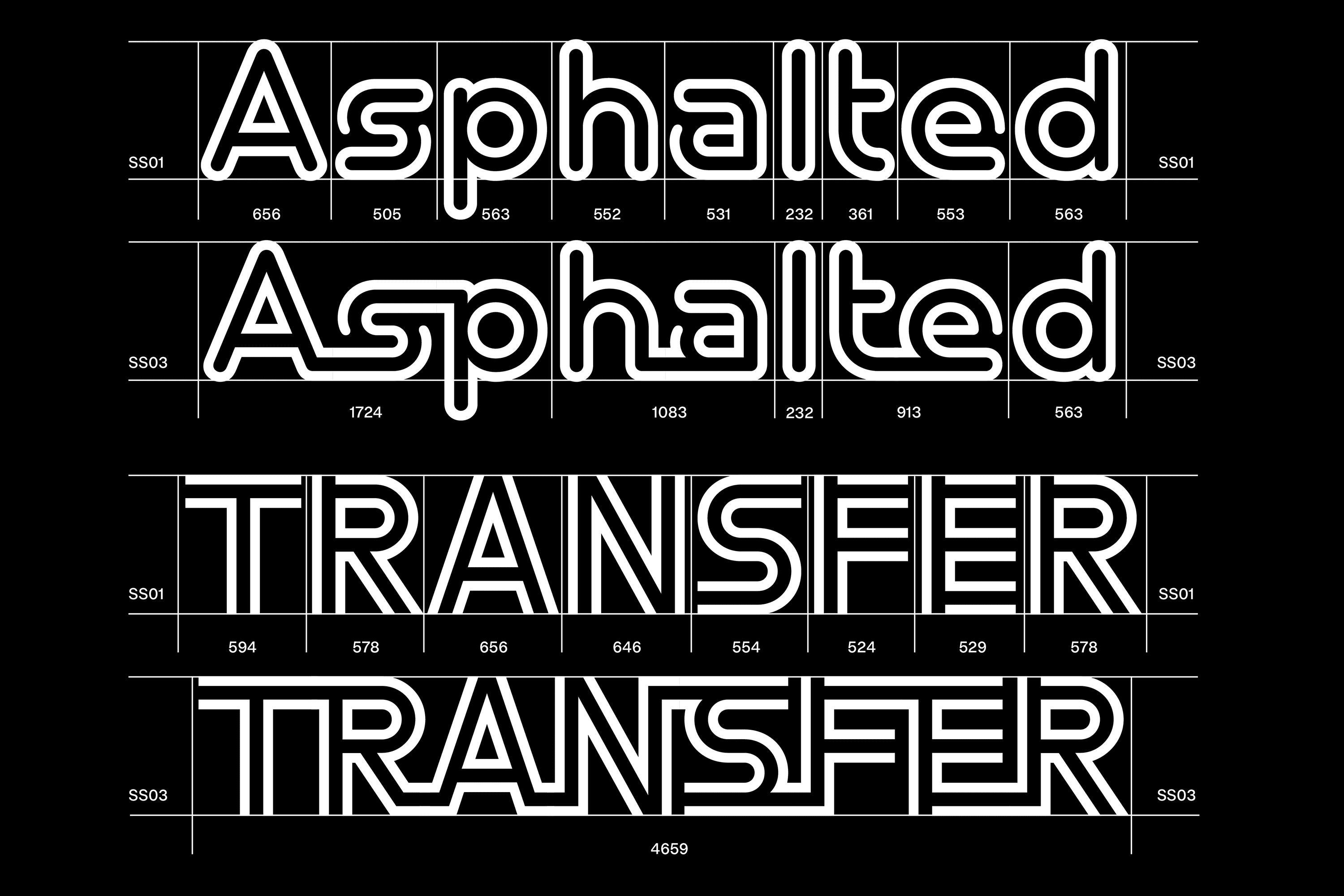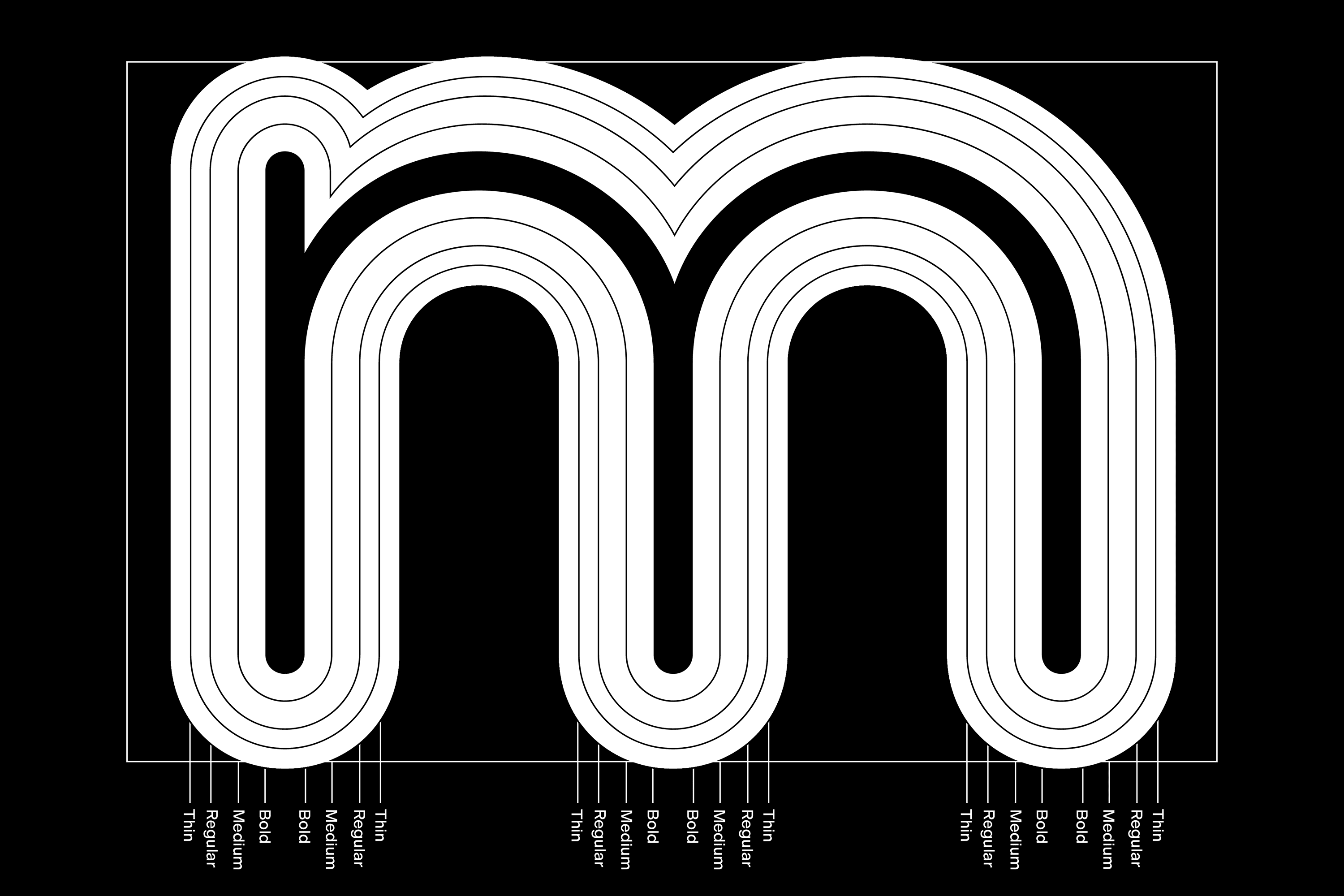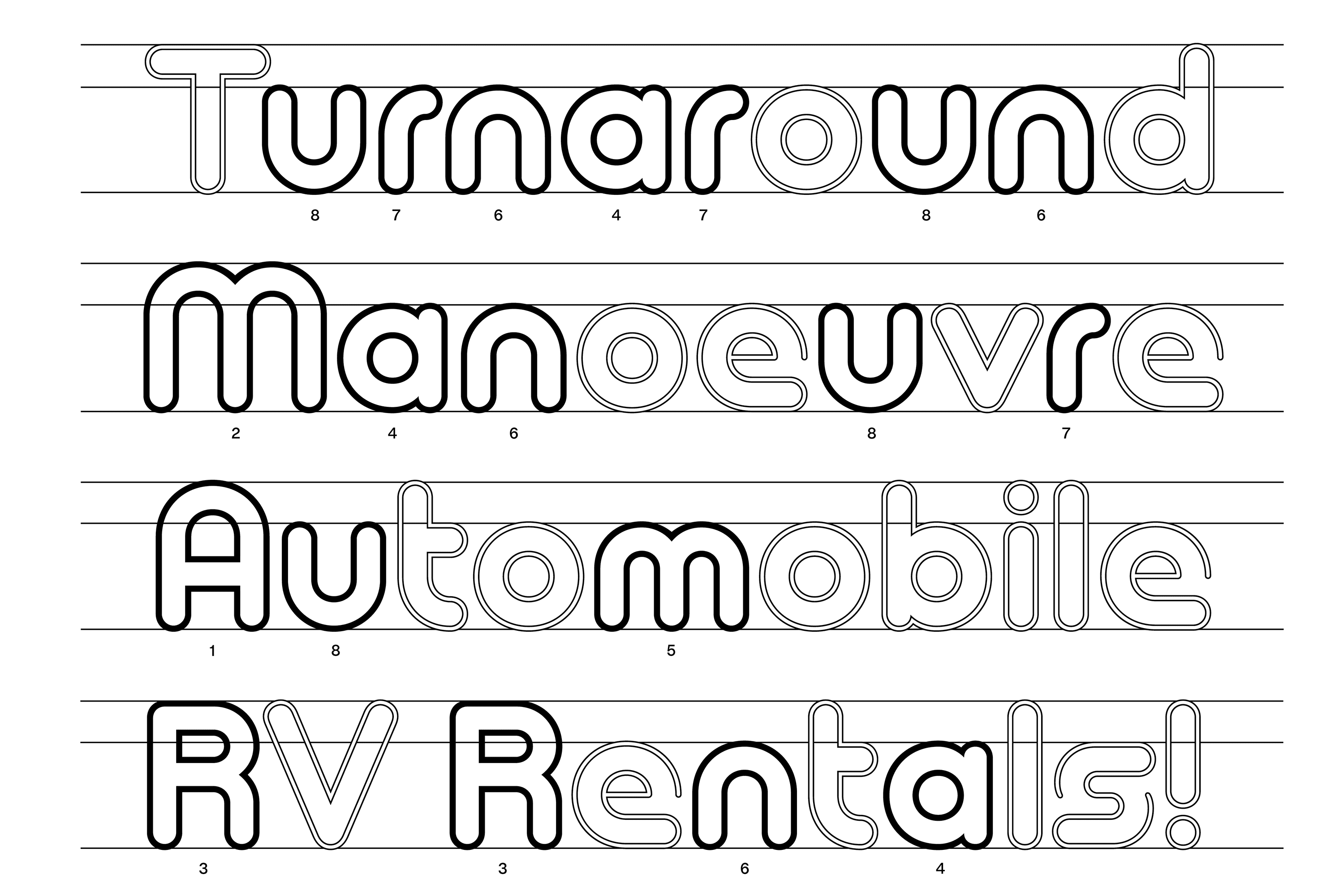
(NOT a FINAL TEXT) Logistik is no longer under construction – it is ready to link and build. The new family is equipped with 3 styles (Open, Closed and Round) each featuring 4 weights. Inspired by an aggregate of y2k aesthetics and European engineering/transport companies, Logistik was first initiated as an experiment in duality – could a typeface have an introverted and extroverted personality1? Across letters and cuts, Logistik has been designed systematically – employing modular components with minimal optical correction, allowing the family to duplex across weights and styles. To stay in-line with current times, the family is available as both standard and variable font files.
First sketched with a nostalgic reverence to an earlier era of dry transfer lettering (1960s–1980s), prototype versions were drawn with multiple in-lines, but during the design phase were simplified down to one2 . In-line letters have a long history of being modified in order to create a harmonious logo. SEGA’s iconic wordmark was based on Teruoki Yagi’s Yagi Double3 , with modified proportions. Ronald Clyne’s colorful use of Dubbeldik for an LP entitled: André Charles & His Quisqueya Ibo Combo Group – uses filled-in counter forms and overprinting for a dynamic effect4 .
Type designer Malte Bentzen has kept this history of display modification in mind and features an innovative stylistic set of optional ligatures, allowing a ‘connected’ set to be activated – building word marks faster than your undergraduate university typography professor can break out the burnisher. The ‘connected’ ligature set is optimized for most letter pairings, linking letters with horizontal, vertical and diagonal stems, while also creating variation in rhythm within a word when multiple routes of connections are possible (maintaining a sequence of top>bottom>top, to create alternating movement within words). Additional levels of customization are available through a ‘soft’ stylistic alternate set, including alt forms for ‘A’ ‘R’ ‘M’ ‘m’ ’n’ ‘a’ ‘r’ ‘u’ and ’t’ – these kawaii-like alternate forms would feel at home on translucent consoles, and early aughts optimism5.
Logistik has been carefully engineered for bold headlines and hi-vis logotypes – it is nearly monolinear, but definitely not monotone. Instead its innovative construction and scripting results in dynamic wordmarks, whether outputted onto reflective 3M substrates, your favorite fluorescent pantone (hit 2X on the offset press, bitte), or a simple one colour job on bond paper – Logistik retains visibility in all conditions.